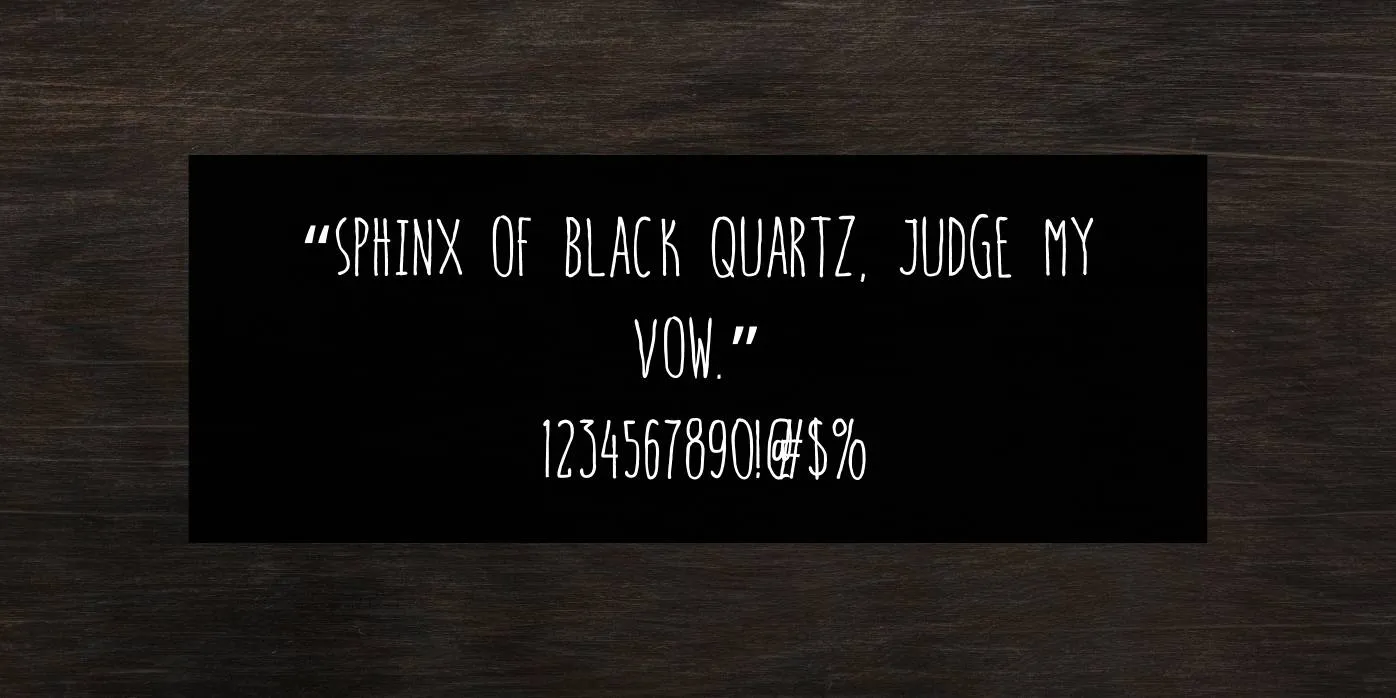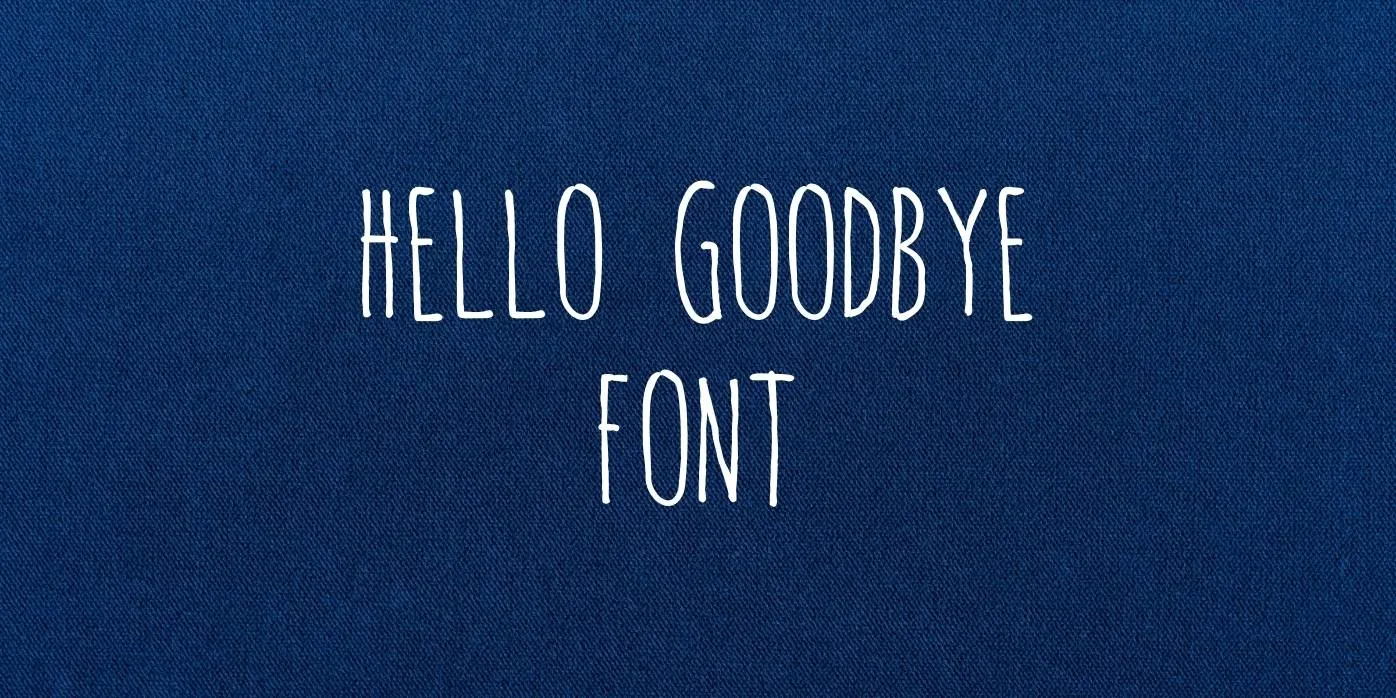
Hello Goodbye Font
Hello Goodbye Font is a handwritten typeface designed by René Bieder and published through Swiss foundry Type-O-Tones in 2014. This Font was originally designed as a sans-serif typeface for a corporate identity project. This typeface style was inspired by some other script and calligraphy typefaces and it is much closer to the meta font you can check out. The font has a unique design that makes it perfect for any project that needs a handwritten touch.